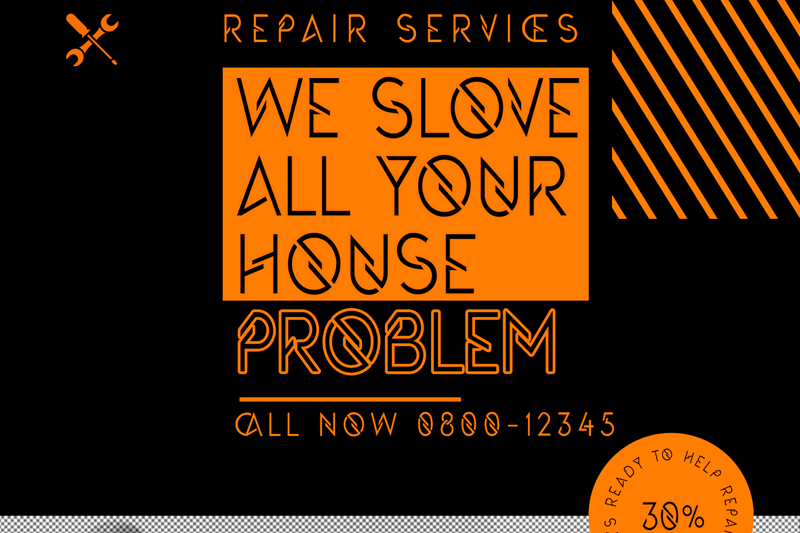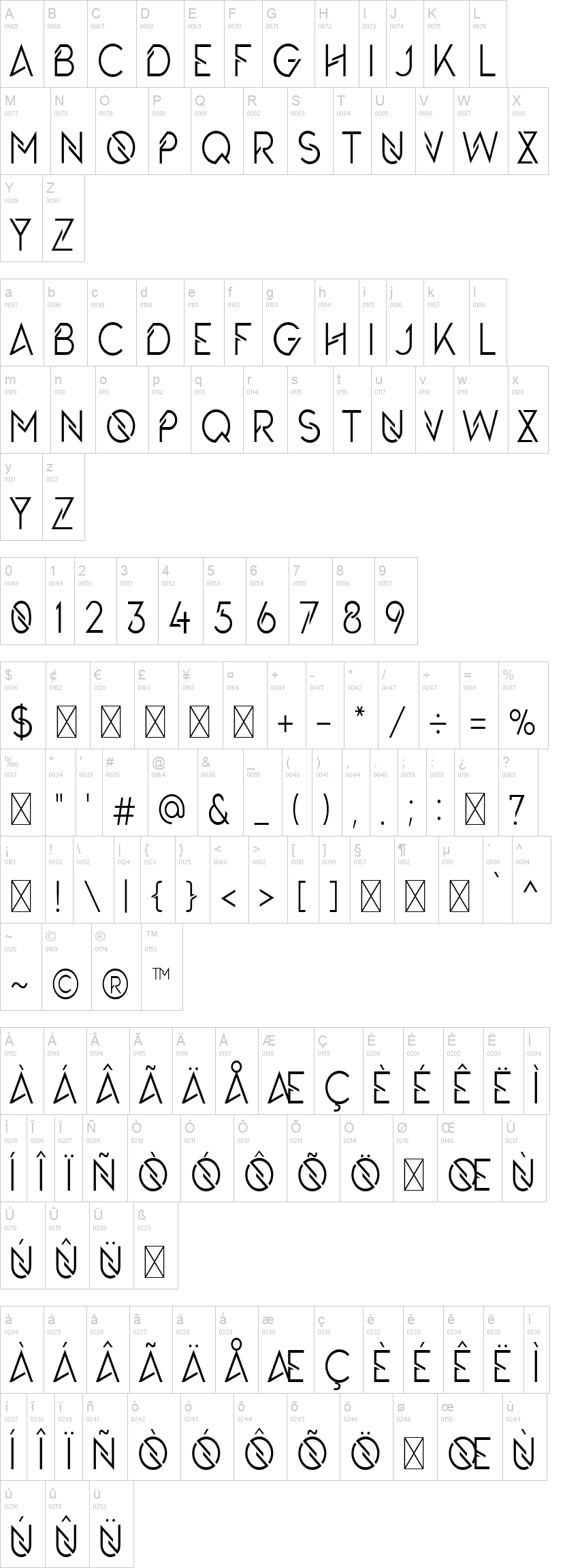
Note of the authorThe Queens Gambit Font is an incredibly unique and modern display font. Its celebrates abstract shapes in all their eclectic brilliance. Add this font to your creative ideas and notice how it will make them stand out! The Queens Gambit Font is suitable for use in many design forms, for example sci-fi scenes, retro gaming, magazines, postcards, logos, DIY Projects, invitation card, quotes and much more.